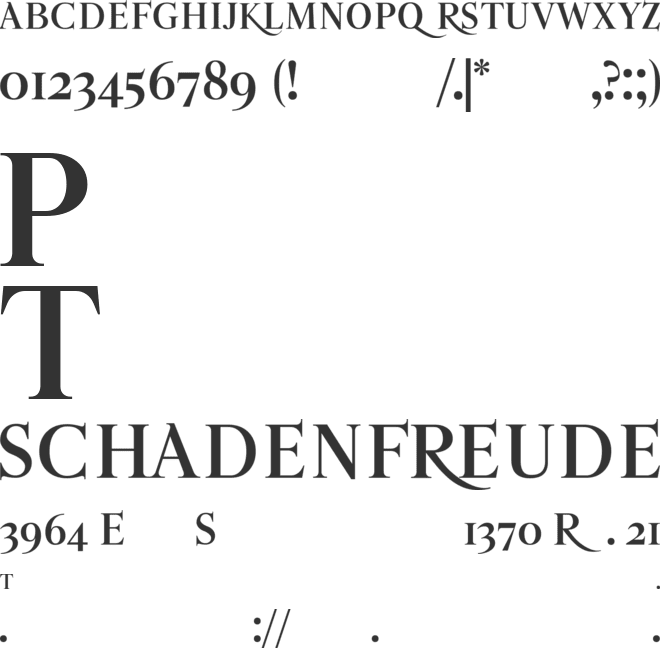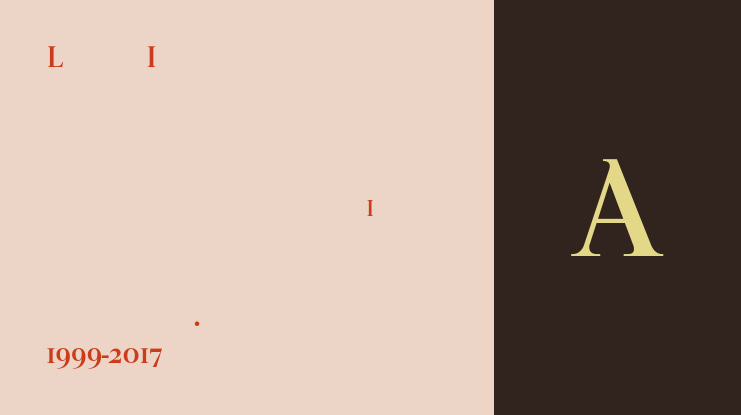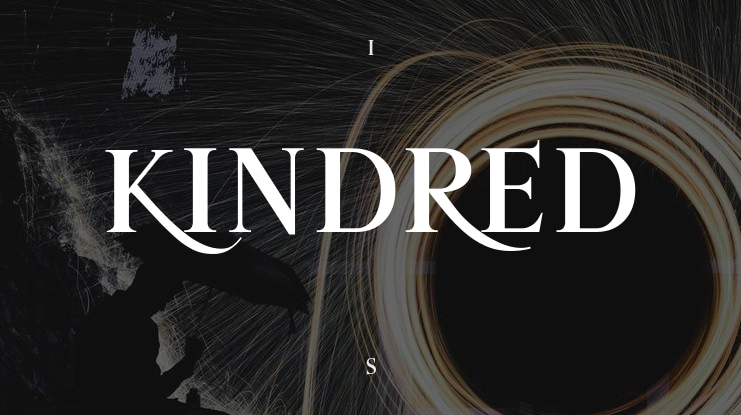
🎨 Font Name: KINDRED by Minimalist Art Studio
🎨 Font Description: Kindred is a chic and elegant classic serif with graceful curves and multilingual versatility—perfect for timeless branding and editorial flair.
✔ Complete Latin set + multilingual diacritics
✔ Alternates, stylistic sets & ligatures
✔ Numbers, small caps, and extended punctuation
✔ Bonus italics and family styles